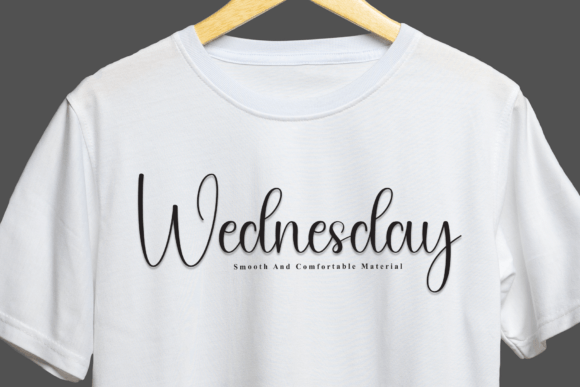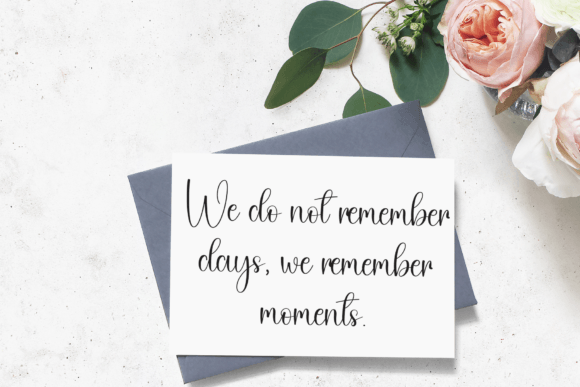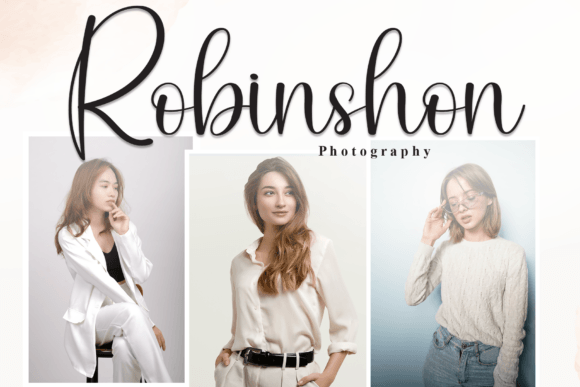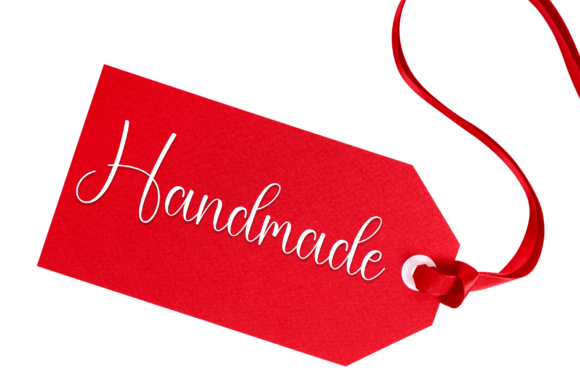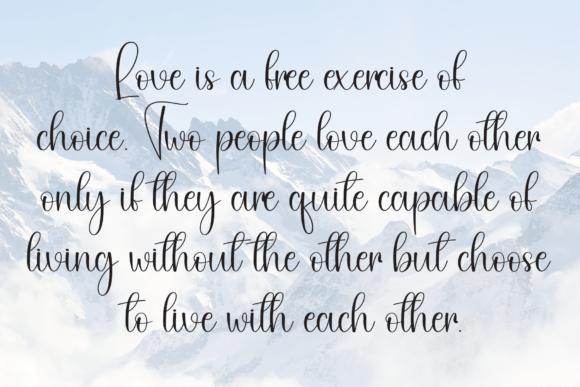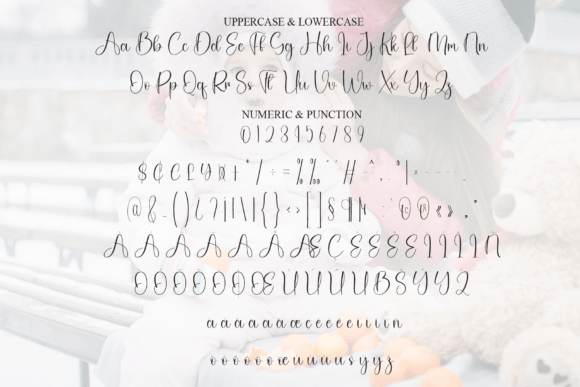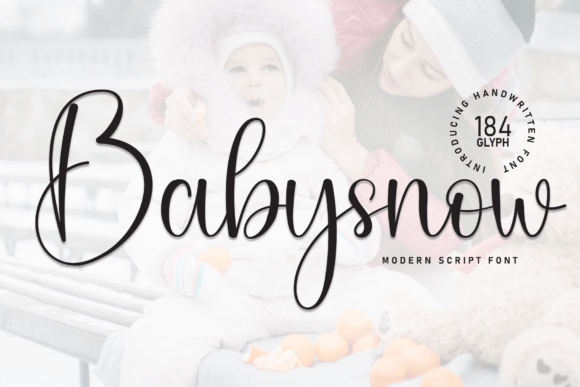
Babysnow Font: Elevate Your Designs with Elegance and Modern Flair
In the world of typography, fonts play a crucial role in conveying the tone and personality of a brand or design. For those seeking a stylish and sophisticated typeface, Babysnow Font is an excellent choice. This beautiful handwritten script font seamlessly blends elegance with a modern twist, making it perfect for a wide range of creative projects.
The Charm of Babysnow Font
Babysnow is a stylish handwritten script font that combines elegance with a modern flair. Its flowing strokes and organic curves bring warmth and sophistication to any project. The font’s unique charm lies in its ability to add a personal, refined touch with effortless charm. Whether you’re working on branding, invitations, social media, or any other design project, Babysnow Font is sure to make a lasting impression.
Key Features of Babysnow Font
- Handwritten Script Style: Babysnow Font boasts a beautiful handwritten script style that exudes elegance and sophistication.
- Flowing Strokes and Organic Curves: The font’s flowing strokes and organic curves create a sense of warmth and fluidity, making it perfect for designs that require a personal touch.
- Modern Flair: Babysnow Font combines traditional elegance with a modern twist, making it suitable for a wide range of creative projects.
- Highly Versatile: This typeface is ideal for branding, invitations, social media, and any other design project that requires a touch of sophistication.
Babysnow Font is a perfect choice for designers and crafters who want to add a touch of elegance and sophistication to their projects. Whether you’re creating a brand identity, designing invitations, or crafting social media graphics, this font is sure to elevate your designs. Its unique charm and effortless elegance make it an excellent addition to any design project.
Tips for Using Babysnow Font
- Pair with Neutral Backgrounds: Pair Babysnow Font with neutral backgrounds to make it stand out and showcase its elegance.
- Experiment with Colors: Experiment with different colors to find the perfect match for your design and brand identity.
- Use for Headings and Titles: Use Babysnow Font for headings and titles to add a touch of sophistication and elegance.
- Mix with Other Fonts: Mix Babysnow Font with other fonts to create a unique and visually appealing design.
Why Choose Babysnow Font?
There are many reasons why designers and crafters choose Babysnow Font for their projects. Here are a few:
- Unique and Elegant: Babysnow Font is a unique and elegant typeface that adds a touch of sophistication to any design project.
- Highly Versatile: This font is highly versatile and can be used for a wide range of creative projects.
- Easy to Read: Babysnow Font is easy to read, making it perfect for designs that require a clear and concise message.
- Supports Multiple Languages: This font supports multiple languages, making it a great choice for global brands and designers.
In conclusion, Babysnow Font is a stylish handwritten script font that combines elegance with a modern flair. Its flowing strokes and organic curves bring warmth and sophistication to any project, making it perfect for branding, invitations, social media, and any other design project. With its unique charm and effortless elegance, Babysnow Font is sure to elevate your designs and make a lasting impression.